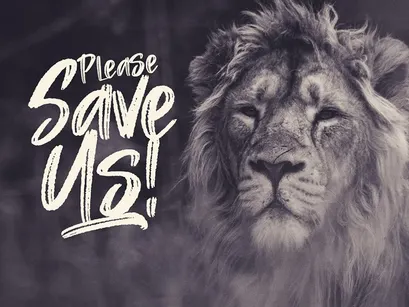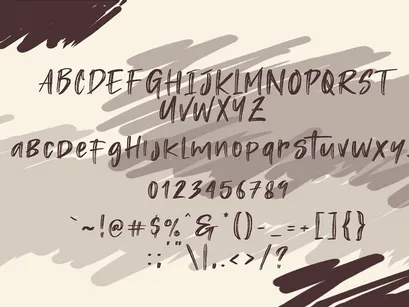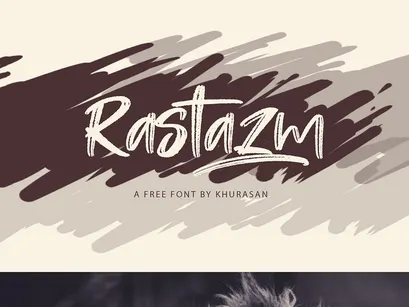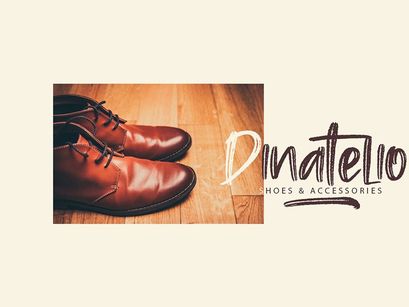
Khurasan is back with his latest type work Rastazm Script Free Font! This font is a brush script font made with real hand-brushed characters. It is bold but comes with rough texture that makes its identity stands out. As you can see, this font can work well on branding, logo, headline, apparel design, prints and other display purposes.